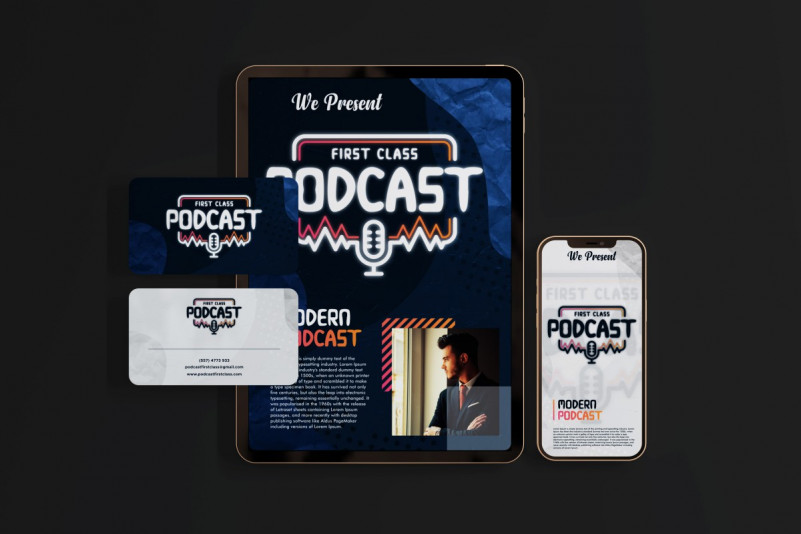
Ezet Font
Ezet Display Font
This is a 100% FREE Font. It is display font that has unique un usual shape characters. Ezet Font includes full set of Uppercase and Lowercase Basic Characters, Numerals and Punctuation. Ezet will be great for games, school, kids related product, etc! Perfect for branding, labels, headline, posters, websites and so much more!
Ezet Display Font is FREE for many projects, headings, logos, branding design, quotes, products, cards, stationery, invitations and more! Be a perfect professional in a minute and start creating today!